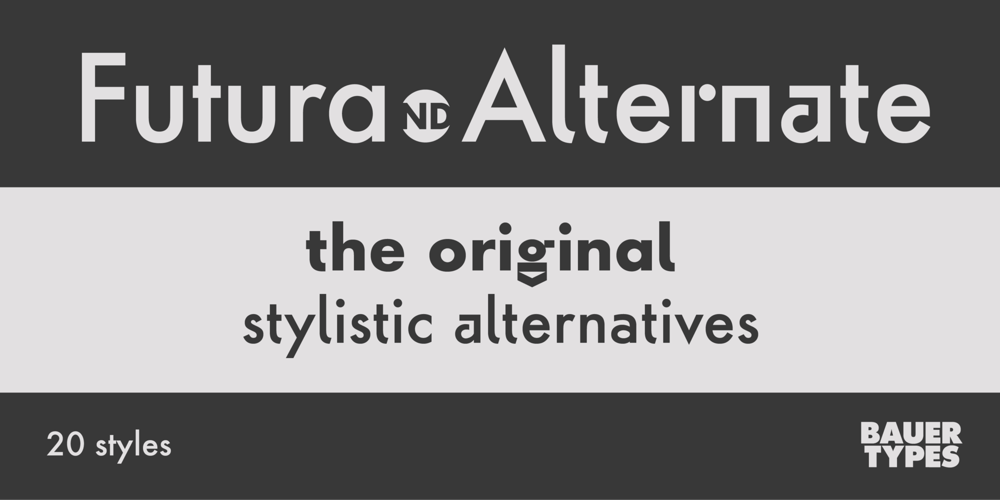
Futura ND Alternate Font Family was designed by Paul Renner, Marie-Thérèse Koreman and published by Neufville Digital. Futura ND Alternate contains 20 styles and family package options. The genuine Futura takes up Paul Renner’s earliest sketches and brings back to life the original stylistic alternatives of the letters a, g, m, and n. Another of its peculiarities is the curved ends of the j, l, and t. It retains its genetic heritage, maintaining a perfect geometry, but with a fresher air than ever.Futura is a Trademark of BauerTypes SL